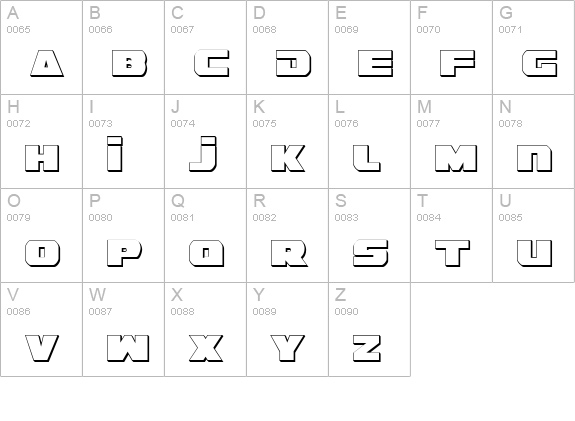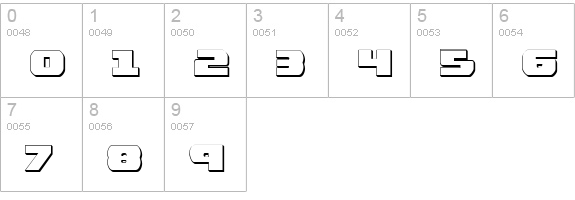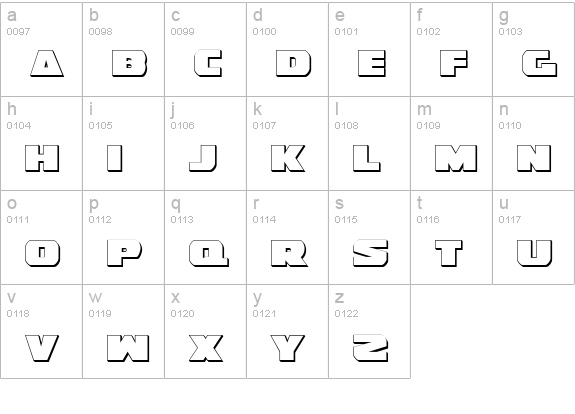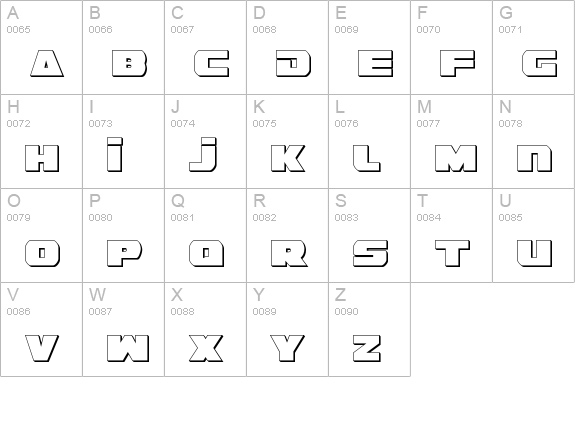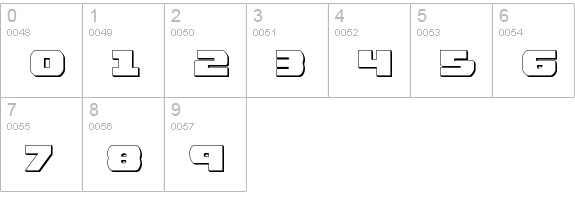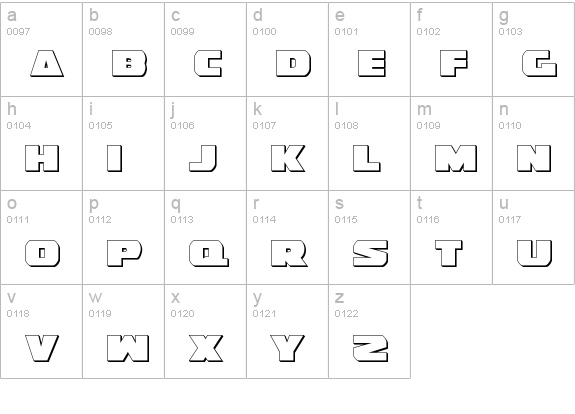
Guardian Shadow font is a striking and bold typeface that exudes a sense of mystery and power. Its unique design features sharp edges and intricate details, making it perfect for projects that require a touch of drama and sophistication. The font's distinctive shadow effect adds depth and dimension, creating a visually stunning appearance. Whether used for headlines, logos, posters, or branding materials, Guardian Shadow font is sure to make a statement and leave a lasting impression. Best of all, Guardian Shadow font is available for free download at FontsMarket.com. This means that you can easily access this eye-catching font and use it in your various design projects without any cost. Don't miss out on the opportunity to enhance your creations with the captivating allure of Guardian Shadow font - download it today and let your creativity shine!